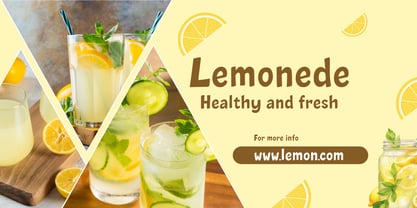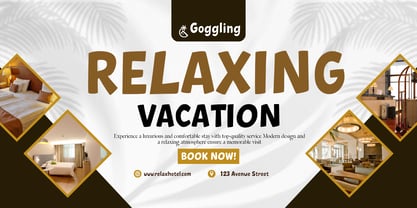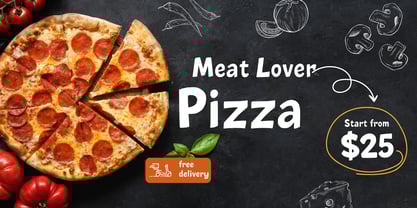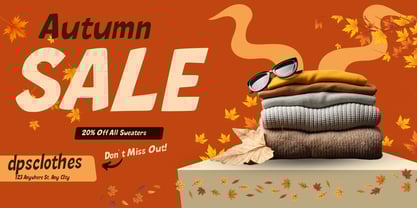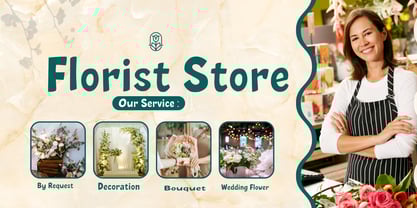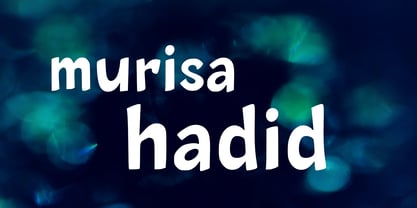
Murisa Hadid
by Murisa Studio
The Murisa Hadid Font Family was designed by Lili Sadili and published by Murisa Studio. Murisa Hadid contains 2 styles and family package options.
🎨 Murisa Hadid – Where Bold Meets Playful
✨ Murisa Hadid is a charming display font that blends confident strokes with a touch of whimsy. Its rounded forms and expressive flow make it perfect for designs that need personality and warmth.
🌍 Multilingual Magic Supports Eastern European characters, making it ideal for global creatives and culturally rich projects.
🧸 Friendly & Fun Great for children’s books, packaging, lifestyle branding, and anything that needs a cheerful vibe.
🖋️ Handcrafted Feel Each letter carries a subtle handmade touch, giving your text authenticity and flair.
🚀 Versatile Impact From bold headlines to playful logos, Murisa Hadid adapts beautifully across print and digital media.